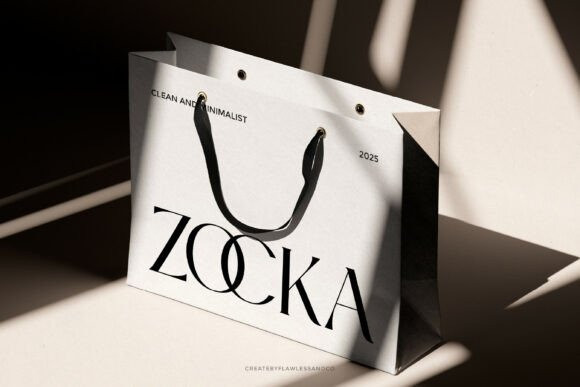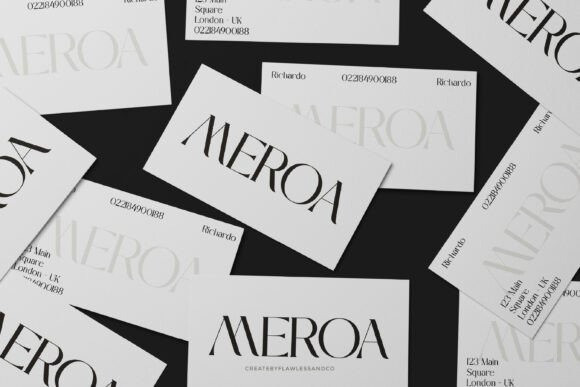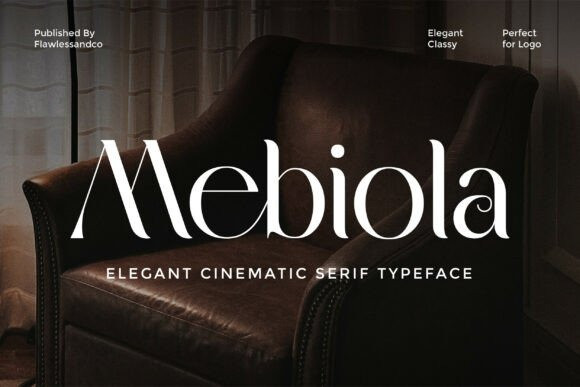
Mebiola Font
Mebiola Font is an elegant cinematic serif font crafted to bring a sense of drama, luxury, and refined storytelling into every design. With its sweeping curves, high-contrast strokes, and artfully sculpted serifs, Mebiola delivers a visual experience that feels both timeless and modern—perfect for brands that want to leave a lasting impression.